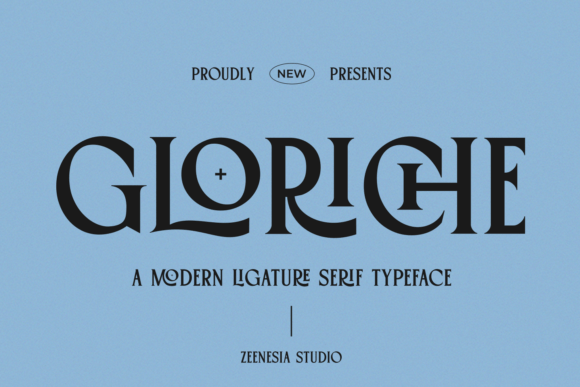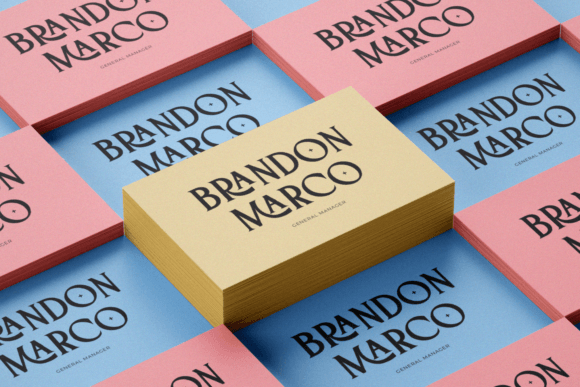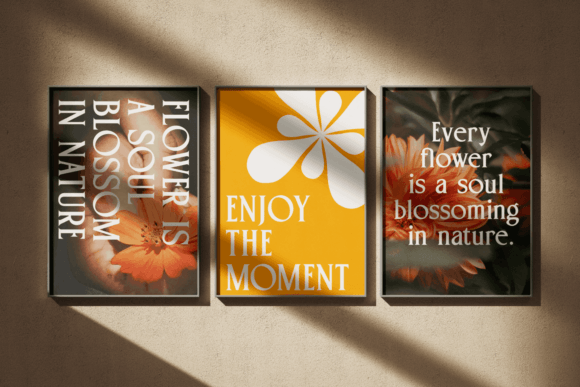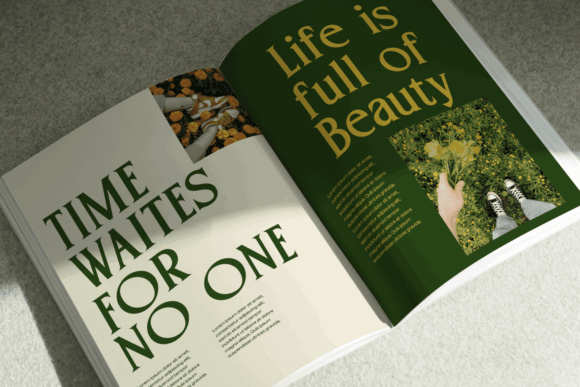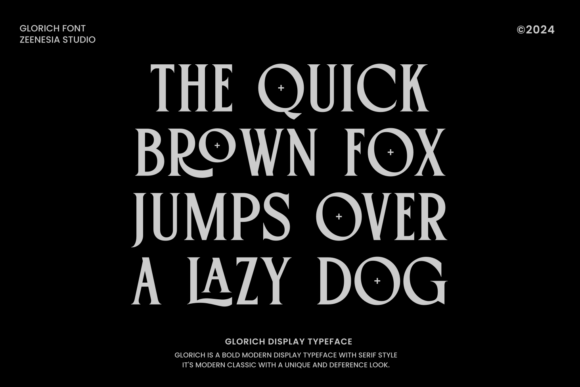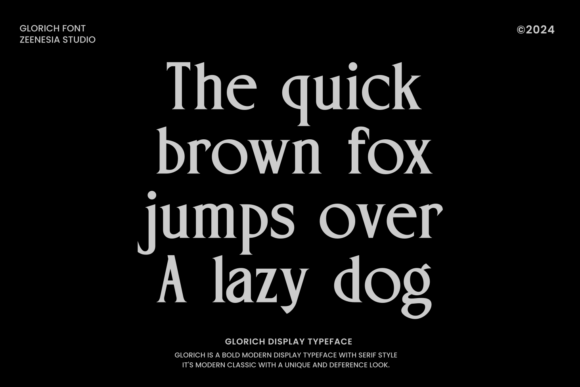
Discover the Elegance of Gloriche Font: A Perfect Blend of Modern Sophistication and Timeless Charm
In the world of typography, few fonts manage to strike a balance between modern elegance and timeless charm as effortlessly as Gloriche. This refined and captivating typeface has been designed to elevate the visual experience of any creative project, whether it’s branding, editorial design, or digital content. With its sleek design and meticulously crafted ligatures, Gloriche brings a touch of sophistication and fluidity to your text, making it the ideal choice for designers and crafters seeking both style and uniqueness in typography.
The Design Philosophy Behind Gloriche
Gloriche’s design is rooted in a deep understanding of what makes typography both functional and beautiful. Its sleek lines and harmonious connections are not just aesthetically pleasing; they also improve readability, making it perfect for a wide range of applications. The font’s bold yet graceful presence commands attention without overwhelming the senses, allowing your message to shine through with clarity and impact.
Key Features of Gloriche Font
- Modern Elegance: Gloriche embodies the essence of modern design with its clean lines and minimalist approach. Yet, it retains a sense of warmth and approachability, making it versatile for various design needs.
- Timeless Charm: While Gloriche is undoubtedly modern, it also possesses a timeless quality that prevents it from feeling trendy or dated. This balance ensures that your designs remain relevant for years to come.
- Meticulously Crafted Ligatures: One of the standout features of Gloriche is its series of beautifully crafted ligatures. These ligatures add a touch of sophistication and fluidity to your text, enhancing readability and aesthetic appeal.
- Versatility: Whether you’re working on a branding project, an editorial piece, or any creative endeavor, Gloriche is perfectly suited to elevate your design. Its flexibility allows it to be used in a variety of contexts, from headlines to body text.
Applications of Gloriche Font
Gloriche’s versatility and aesthetic appeal make it suitable for a wide range of applications. Here are some of the areas where Gloriche truly shines:
- Branding: Create a lasting impression with Gloriche’s bold and elegant presence. It’s perfect for logos, business cards, and any materials that represent your brand’s identity.
- Editorial Design: Elevate your editorial content with a font that combines readability with style. Gloriche is ideal for magazine articles, book titles, and any written content that demands attention.
- Digital Content: In the digital realm, Gloriche stands out in a crowded online space. Use it for website headers, blog posts, or social media content to give your text a sophisticated edge.
Why Choose Gloriche?
In a sea of typefaces, Gloriche offers a unique blend of style, elegance, and functionality. Here are a few reasons why designers and crafters are gravitating towards Gloriche:
- Uniqueness: Gloriche’s distinctive design ensures that your work stands out. Its elegant ligatures and modern appeal provide a fresh alternative to more traditional typefaces.
- Readability: Despite its sophisticated design, Gloriche remains highly readable, making it suitable for both headings and body text.
- Emotional Connection: Fonts have the power to evoke emotions and convey messages subtly. Gloriche’s timeless charm and modern elegance help create a positive and lasting impression on your audience.
| Font Name | Gloriche Font |
| Author | zeenesia |
Gloriche is more than just a typeface; it’s a design statement. Its perfect blend of modern sophistication and timeless charm makes it an invaluable asset for any designer or crafter looking to elevate their work. Whether you’re embarking on a branding project, working on editorial content, or simply exploring new typography options, Gloriche promises to bring a touch of elegance and uniqueness to your creations. With Gloriche, you’re not just choosing a font; you’re embracing a design philosophy that values beauty, readability, and the power of typography to connect and inspire.